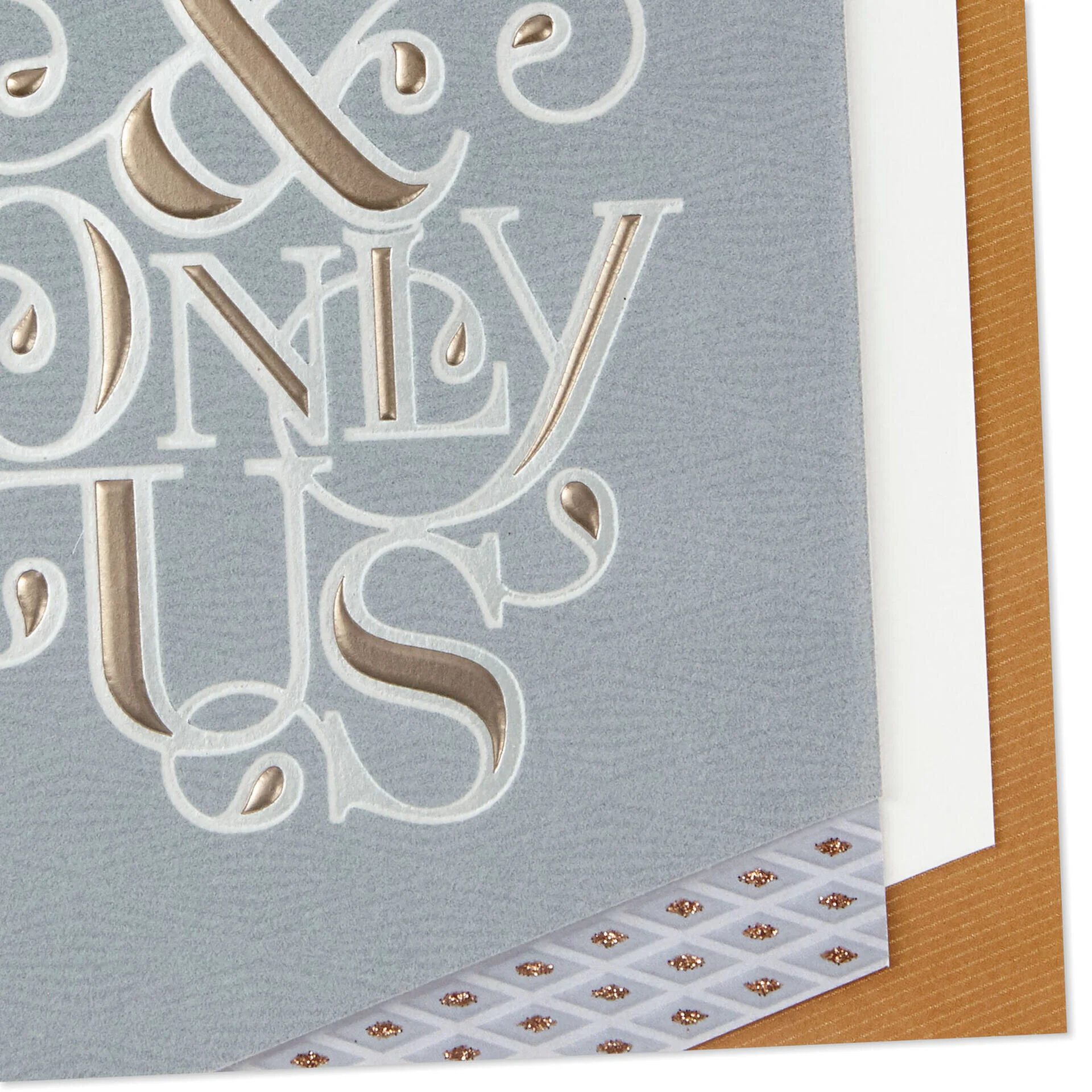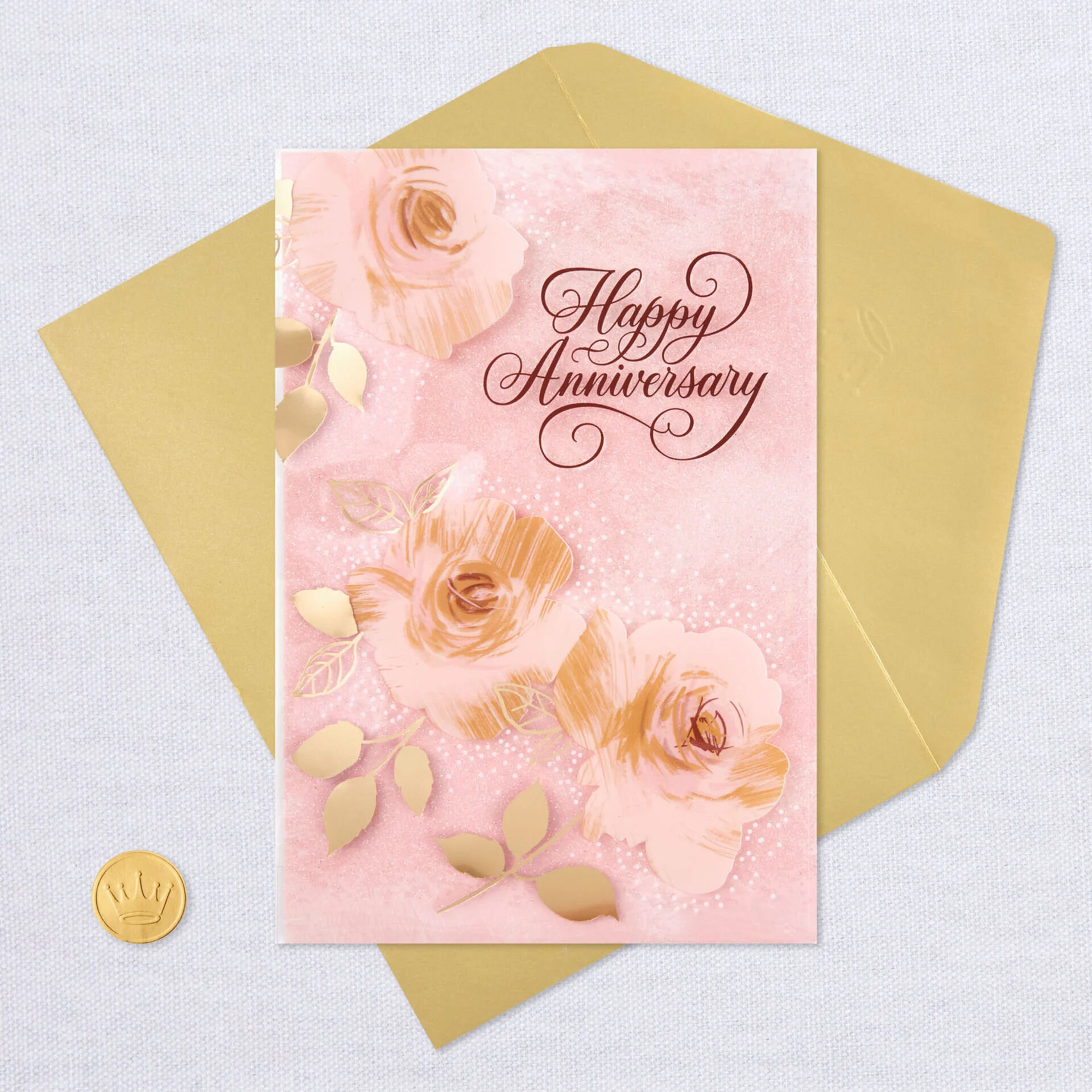
I’m so happy to see my brush lettering utilized across these cards celebrating weddings, anniversaries and babies! These are so bold and impactful and I hope help many people celebrate these milestones.
Last up for this season of love, an ampersand I created for Hallmark Gifts. This ceramic platter and frame both use the same style (with different levels of detail in the ampersand). As a lettering artist, anytime we can explore a unique ampersand is a fun request!
Hallmark has some lovely cards on their website that you can add photos to! They used my “You & Me” type solution on this fun one, perfect for an anniversary or other celebration.
Valentine’s Day is right around the corner and today I’m sharing this lovely card I created lettering for that is part of the Signature Studio line. I also think it would be perfect for an anniversary, too!
This Sunday, June 6th Dale and I are celebrating SIX years of marriage! While looking for a card for Dale I found my lettering used on this beautiful anniversary card. Every year we write notes to each other for our anniversary (with the exception of last year…) so this year is even more important!